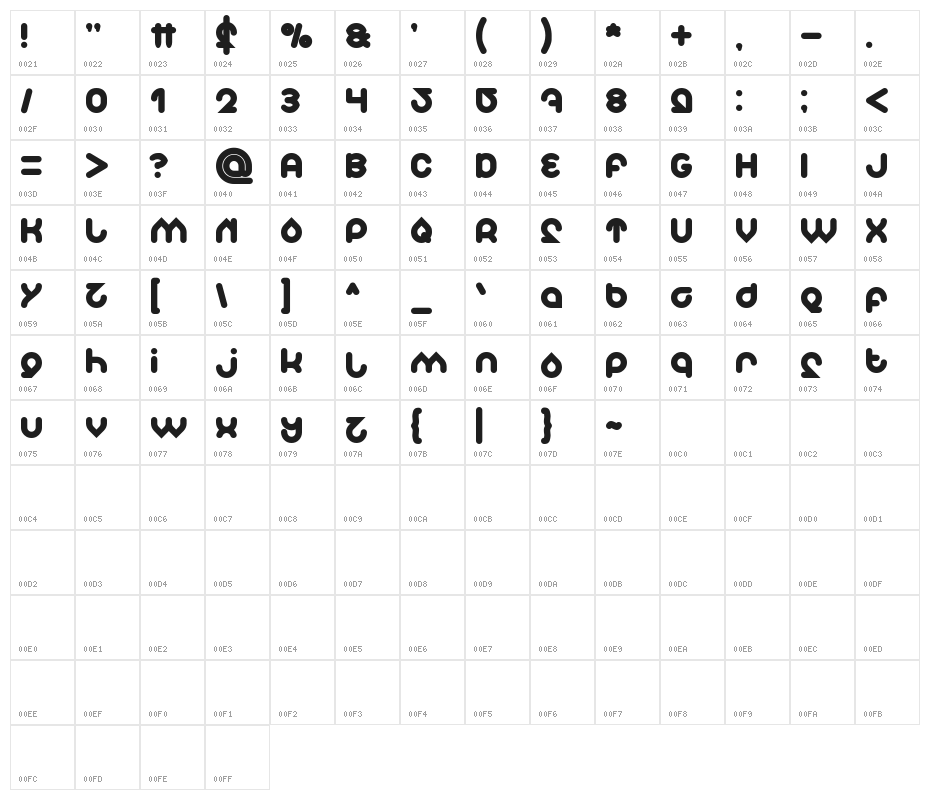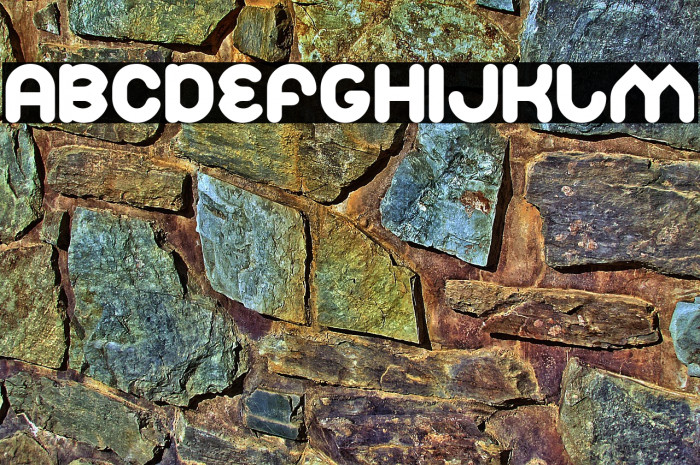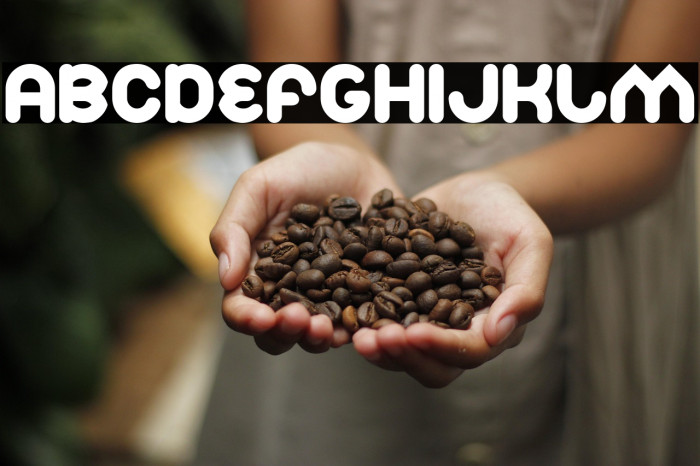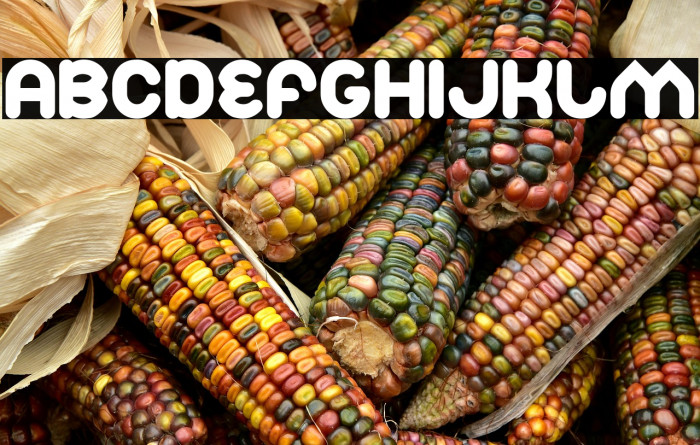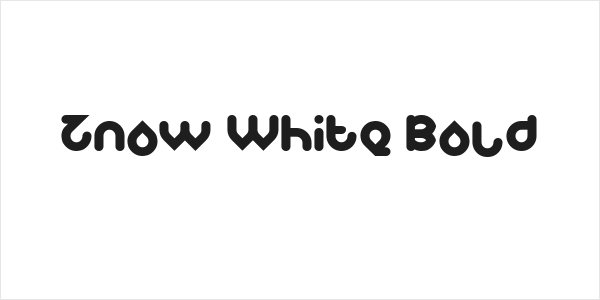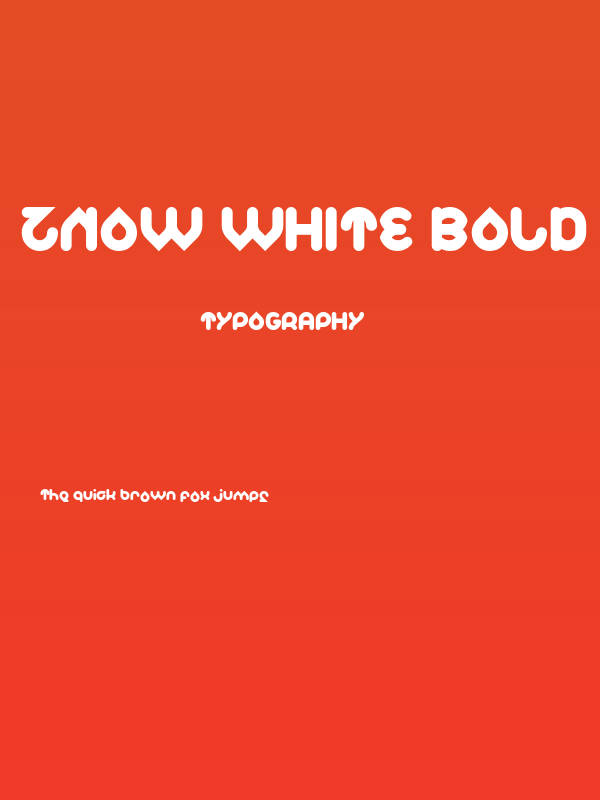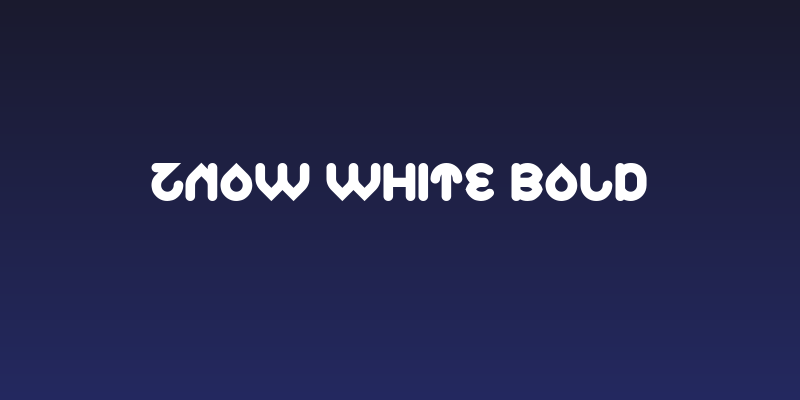
Znow White Bold Font
Znow White Bold Description
This font features a bold and playful design with rounded edges and a consistent thickness throughout each character. The letters are crafted with a modern, geometric style, creating a sense of uniformity and cohesion. The uppercase and lowercase letters maintain a similar width, contributing to a balanced appearance. The numerals and special characters are designed to match the overall aesthetic, ensuring visual harmony across all elements. This font's unique style makes it stand out, offering a fresh and contemporary look.